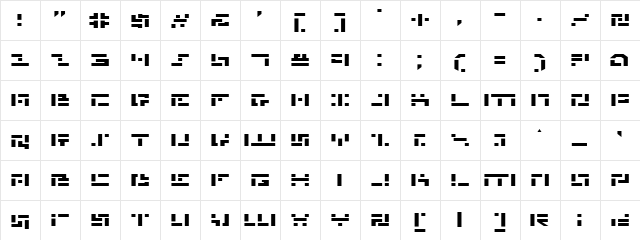
Missile Man Expanded Font Preview
Missile Man Expanded Expanded
Missile Man Expanded Font Details
Design Context for Missile Man Expanded Typeface
Missile Man Expanded is a composed and adaptable typeface that performs quietly and consistently across a wide range of design contexts.